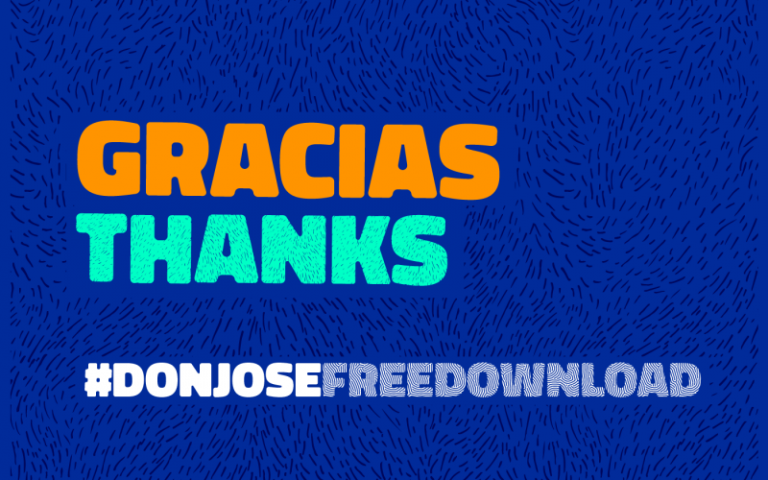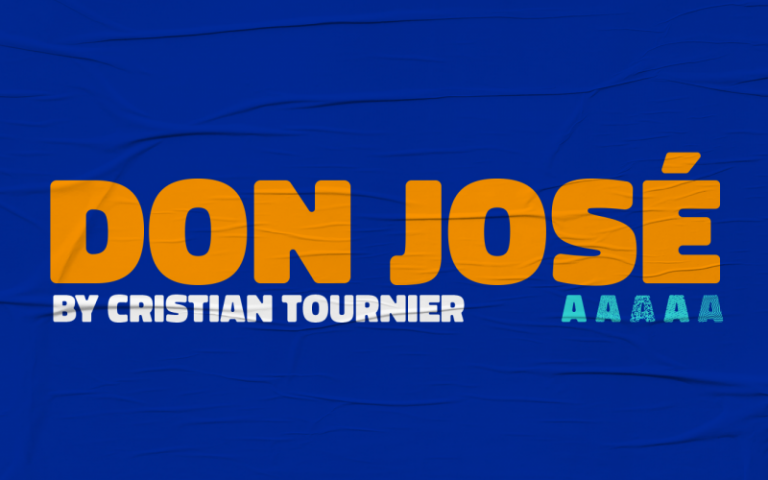
Don José Sans Font Family
Introducing to you a display typeface. Introducing Don José Typeface! Don José designed by Cristian Tournier. Don José Sans Font Family is a sans-serif family with a high box, designed for holders. Designed by Cristian Tournier, it has 5 styles: Black, Roots, Mustache, Journey and Textile. The greatest virtue that this family presents is the black weight, of all its variants, which makes it interesting for headlines or highlights for magazines, books, posters, or any text that you want to highlight.